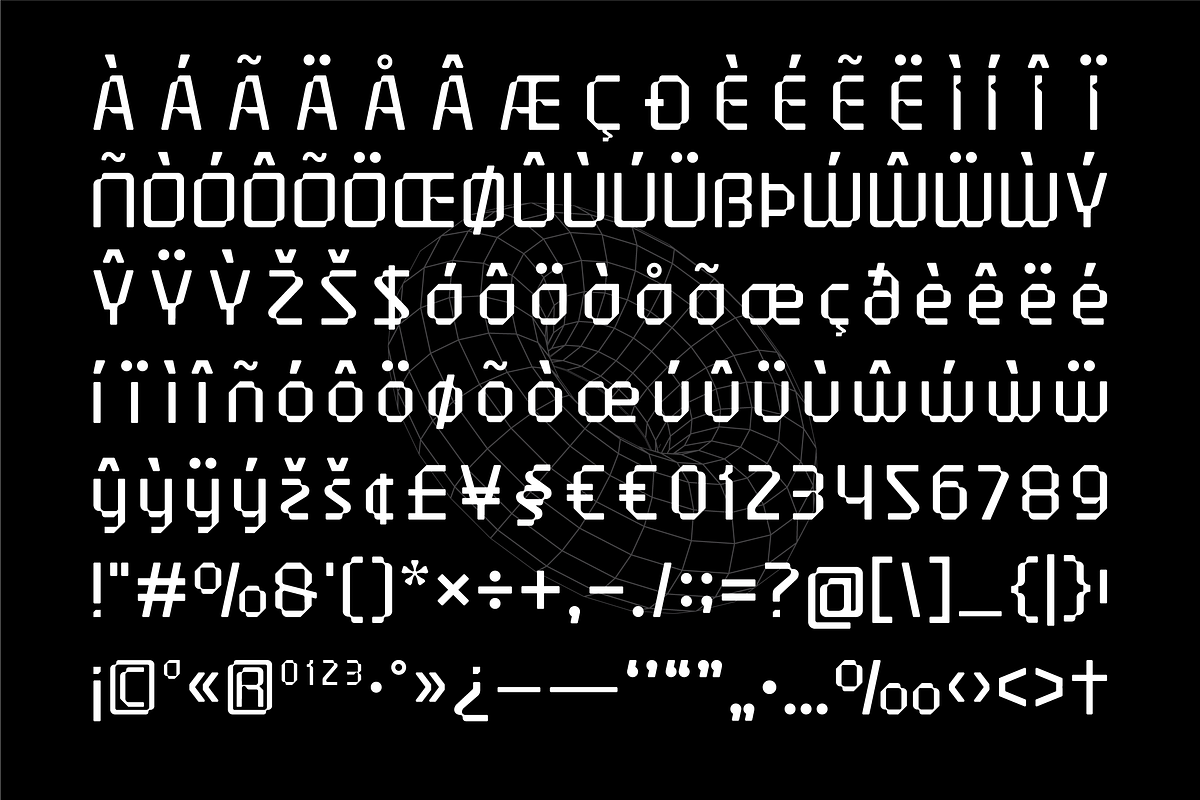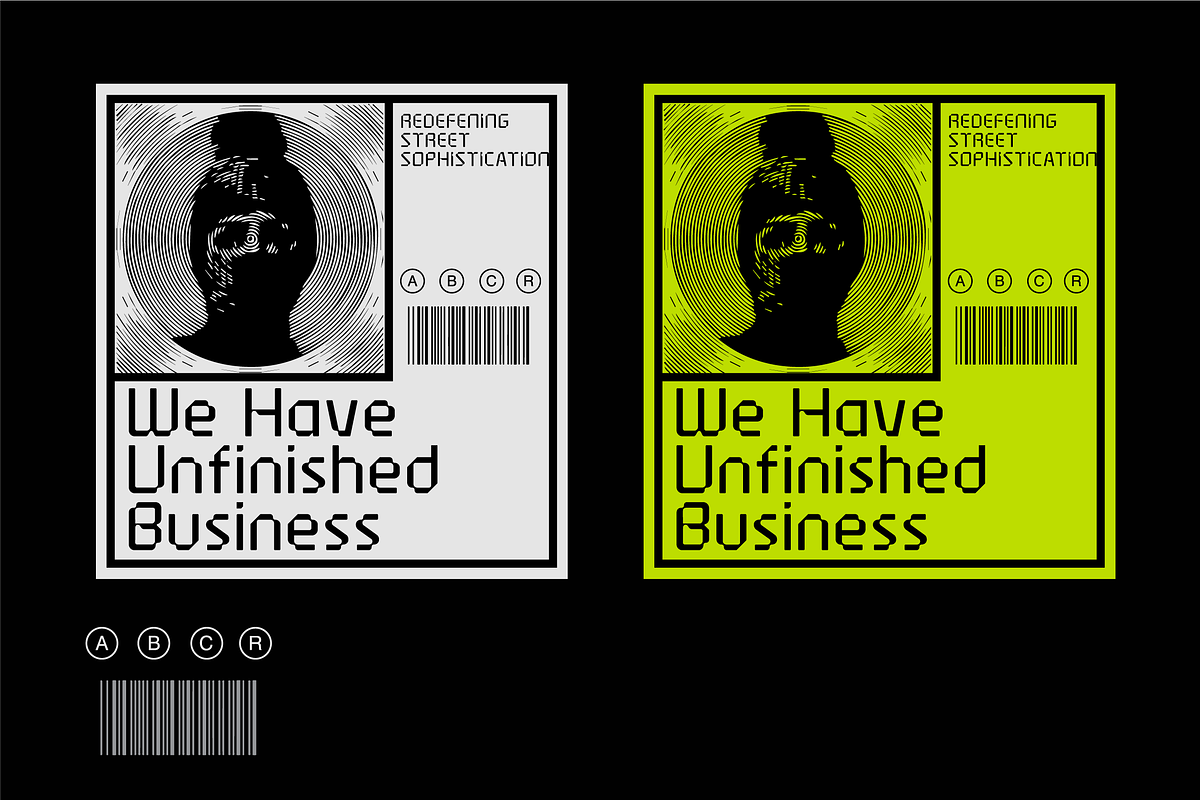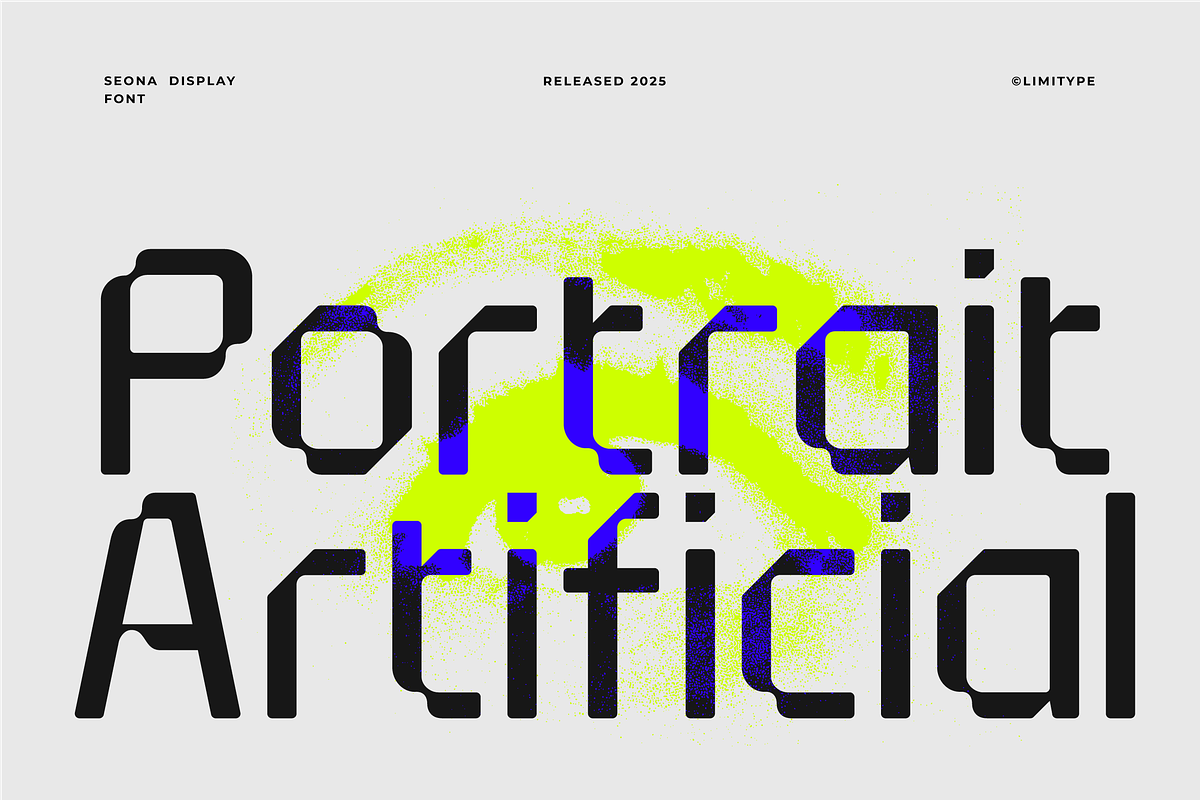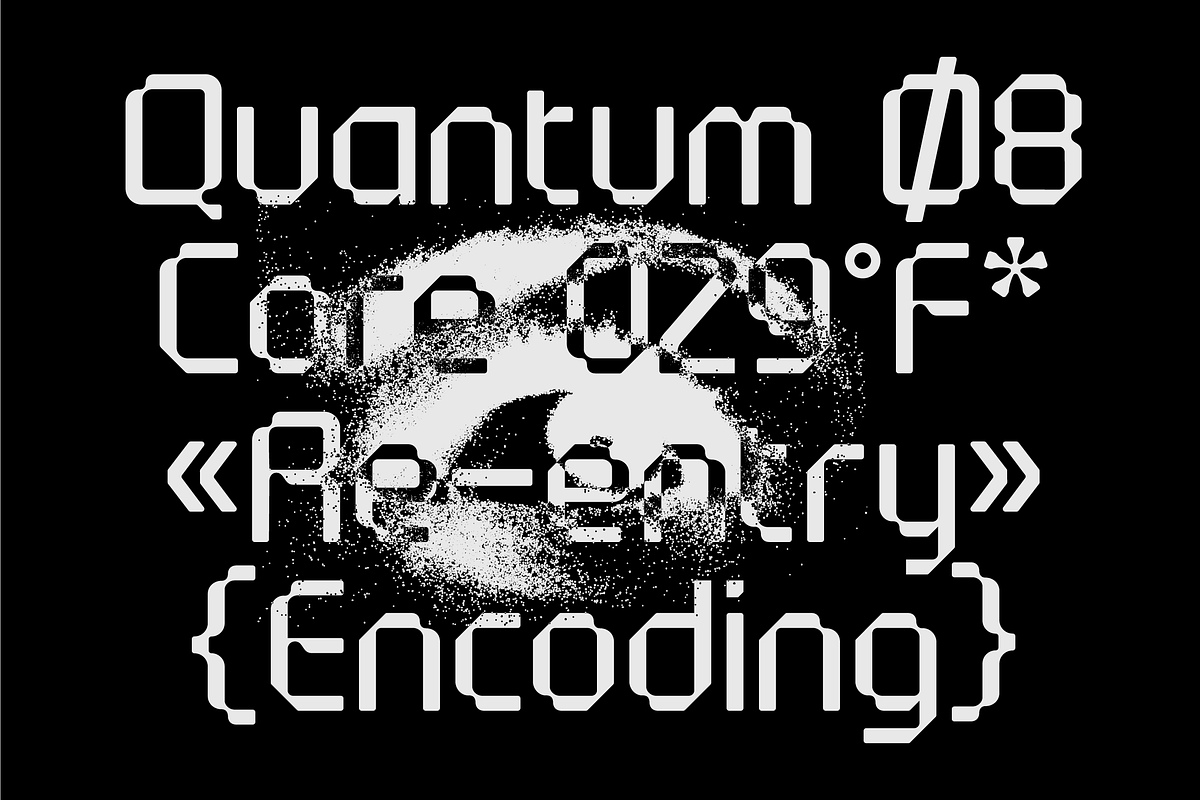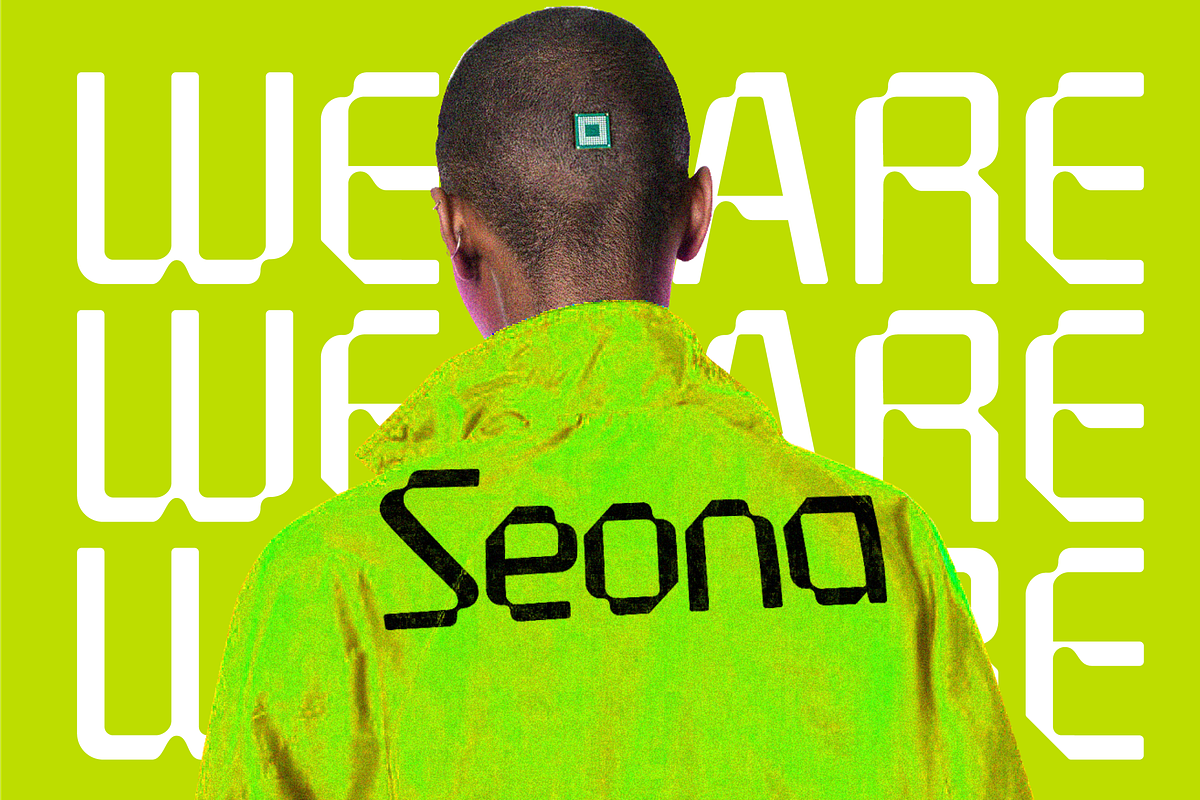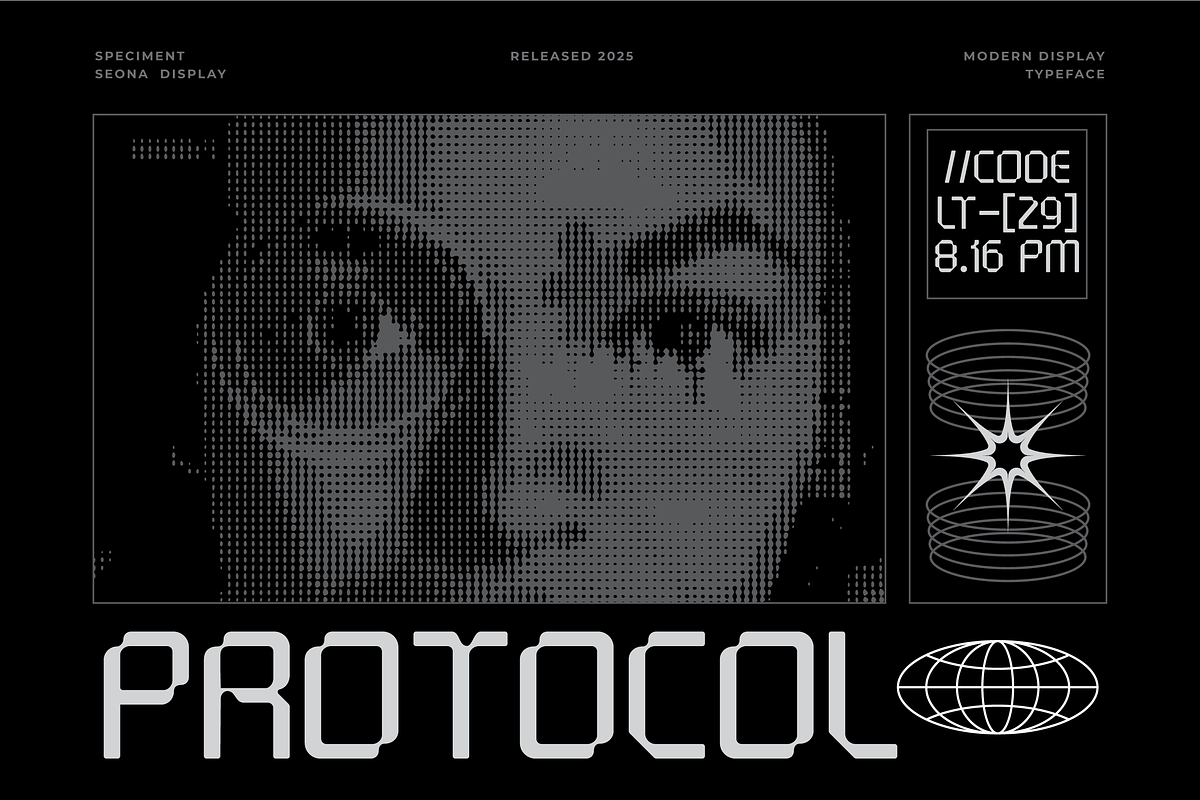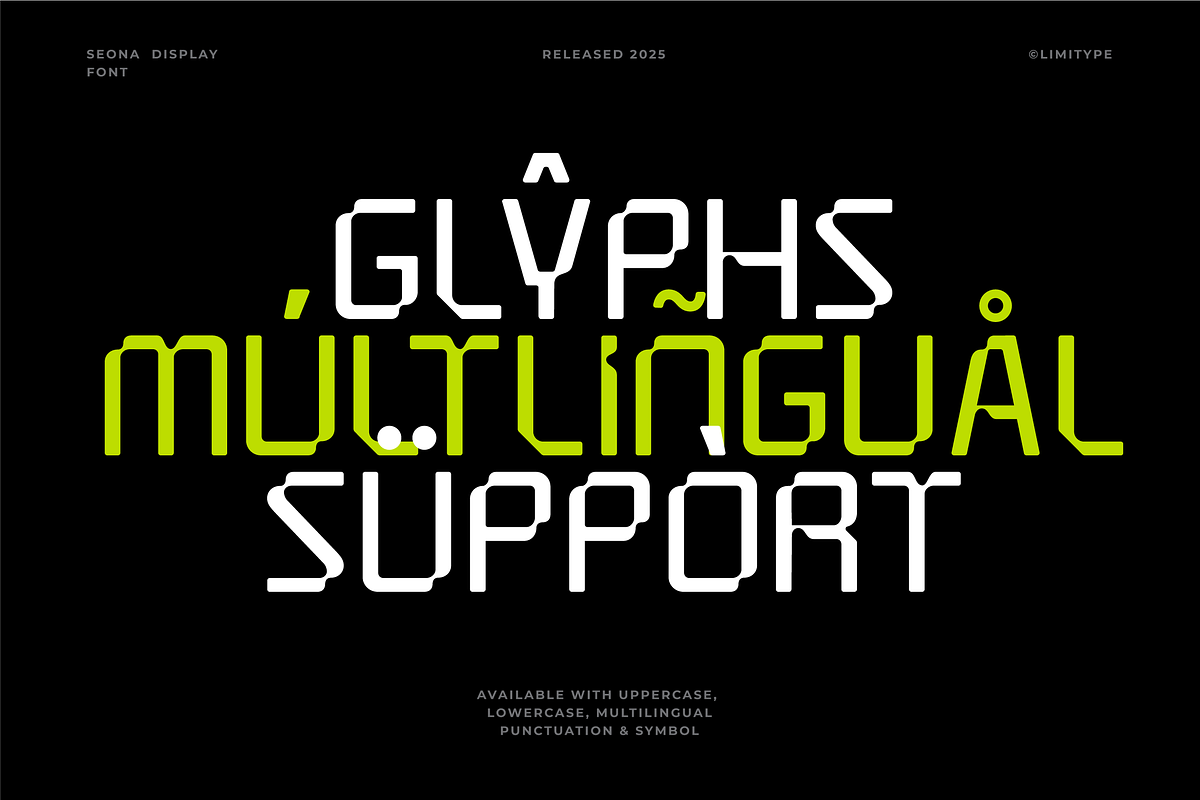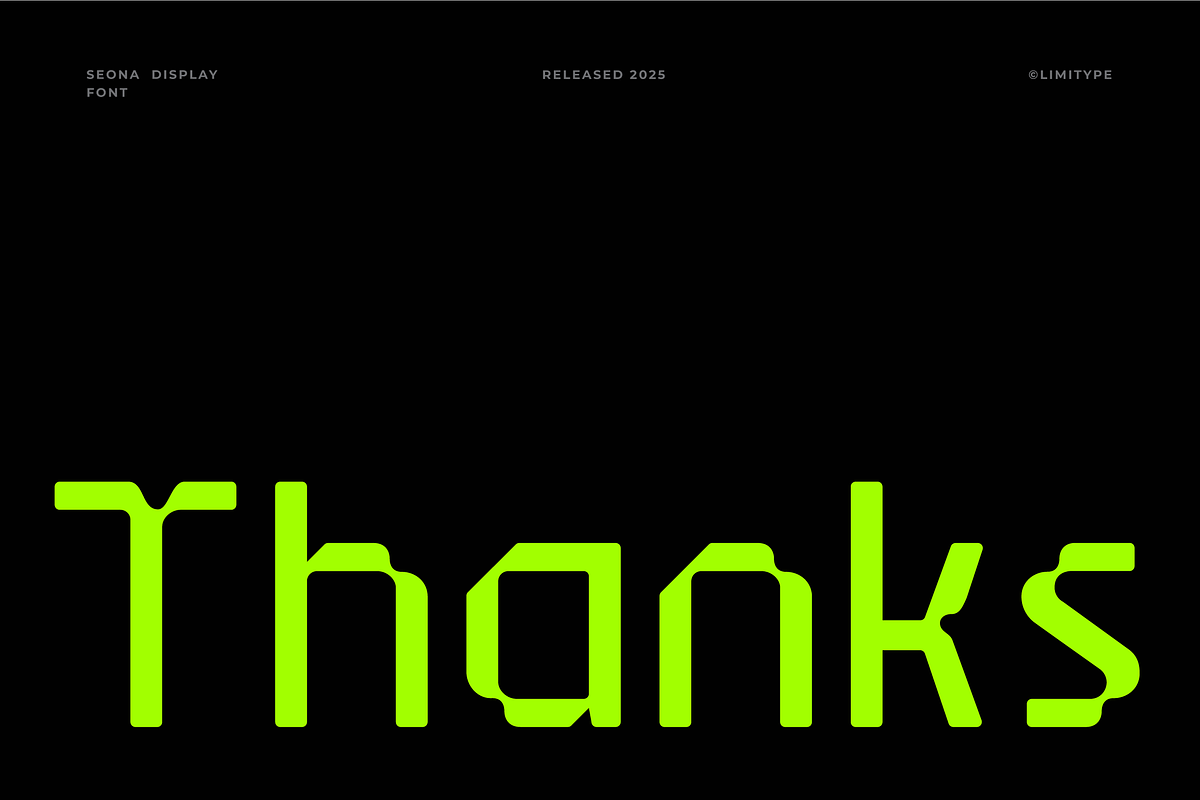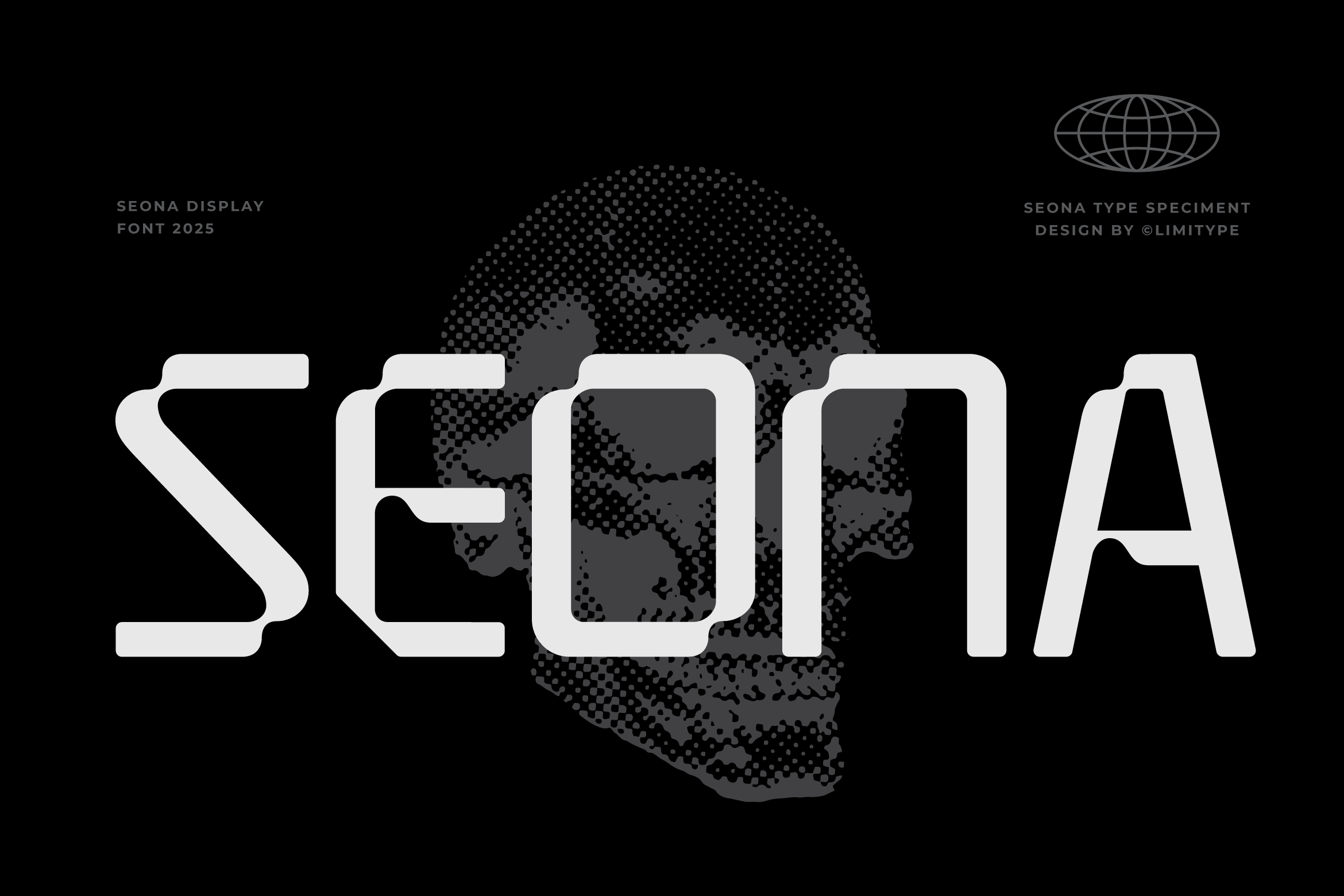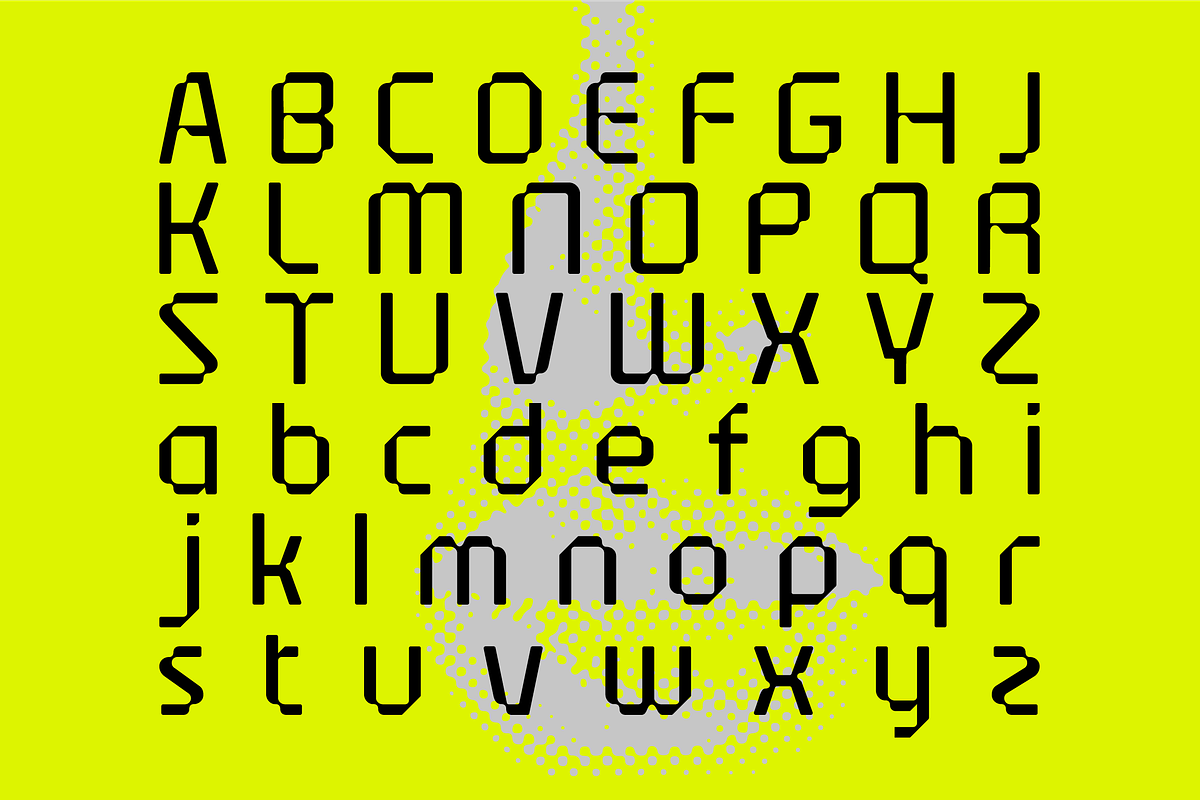
Seona - Futuristic Font
Seona is a futuristic display font with a unique and slightly experimental letterform style. Its modern design, paired with distinctive connection shapes, gives it a bold and forward-looking character. Perfect for projects that aim to evoke a high-tech, robotic, or futuristic feel.